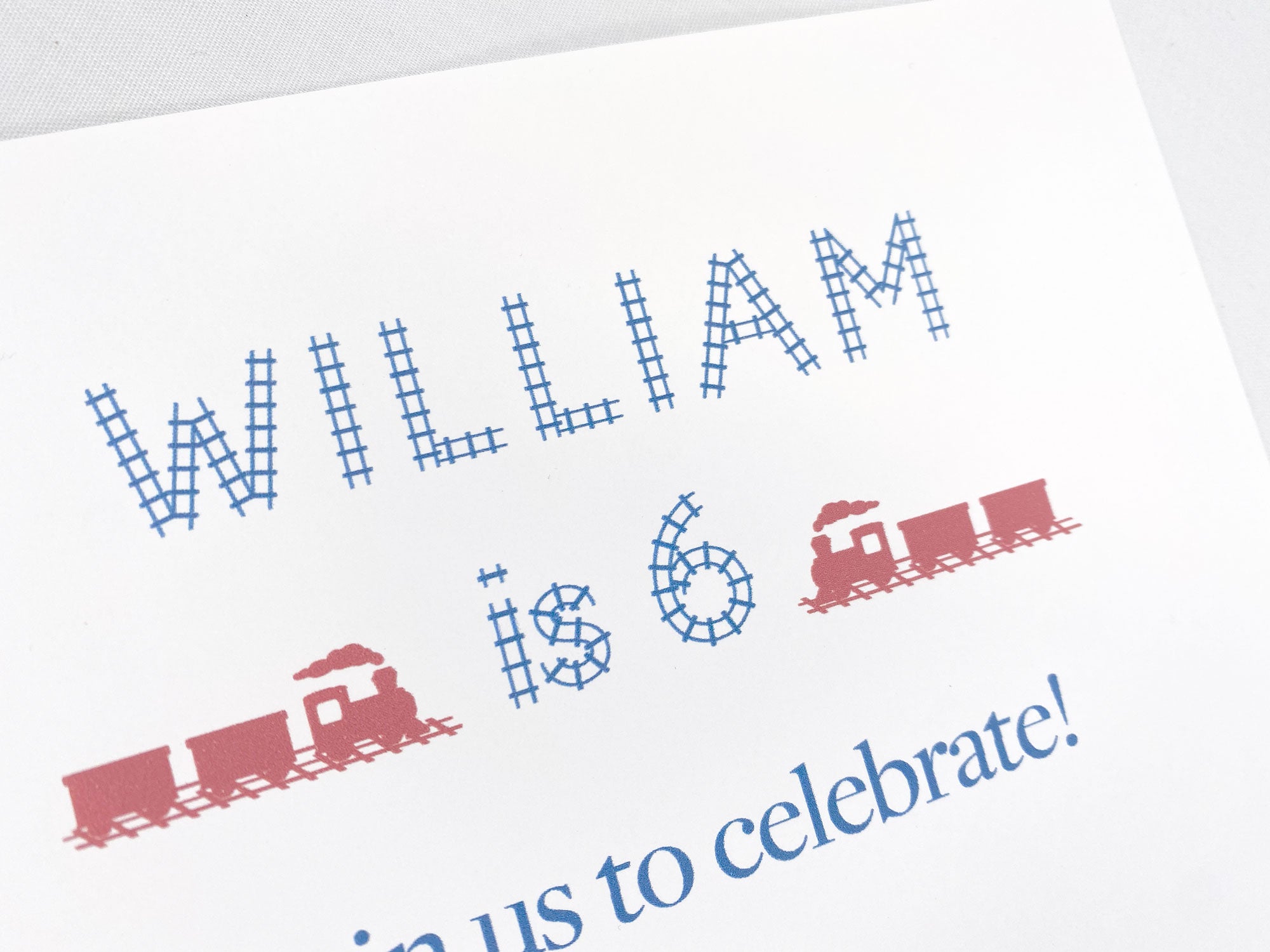
Our Single Tracks Font is a fun train track pattern. It features 26 uppercase and 26 lowercase letters plus numbers 0-9 and punctuation. It also includes an east-bound train and a west-bound train with an engine, cars, and caboose.